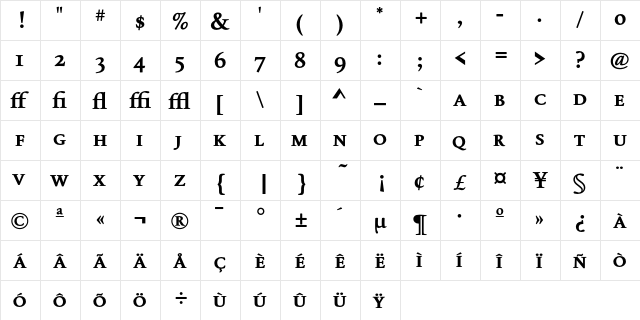
FoundryOldStyleExpert Bold
Design Context for FoundryOldStyleExpert Typeface
FoundryOldStyleExpert carries the refined structure of traditional serif typography, with bracketed terminals and considered proportions that communicate credibility and craft. The heavy weight commands attention and anchors typographic hierarchies.